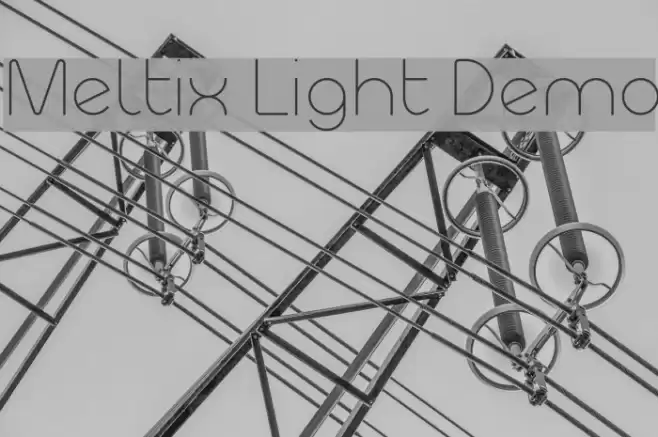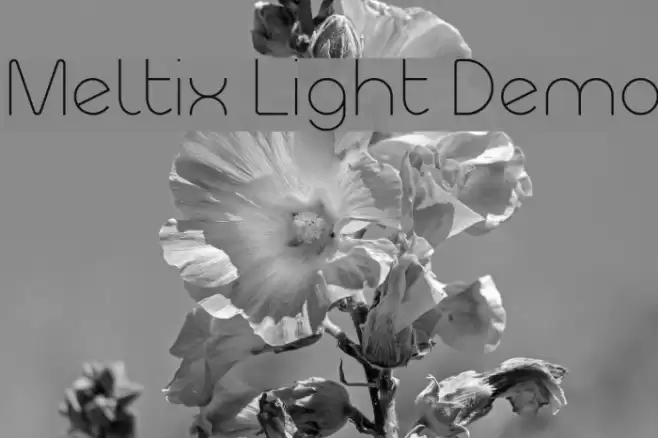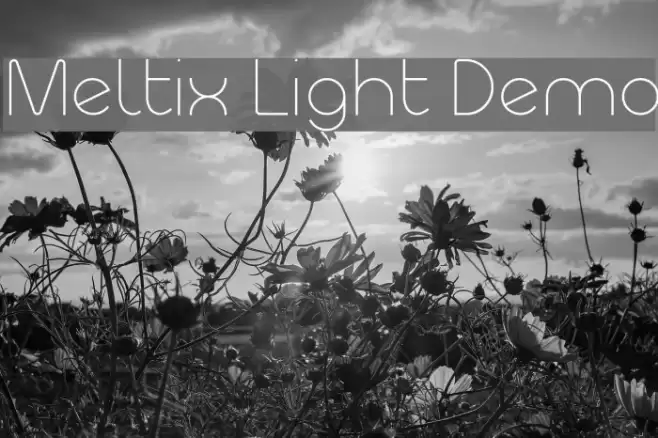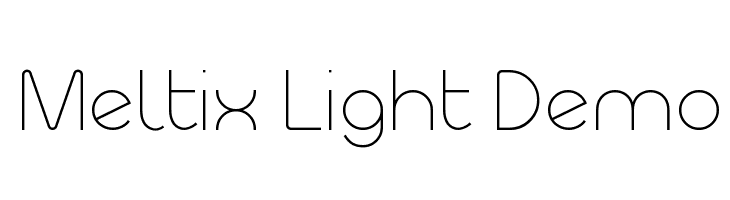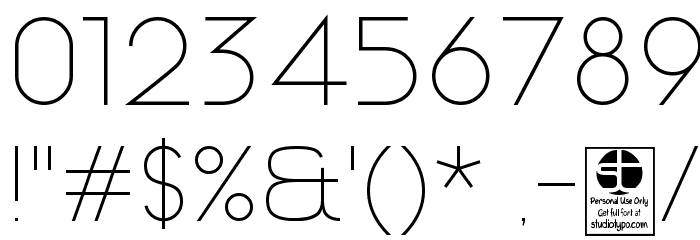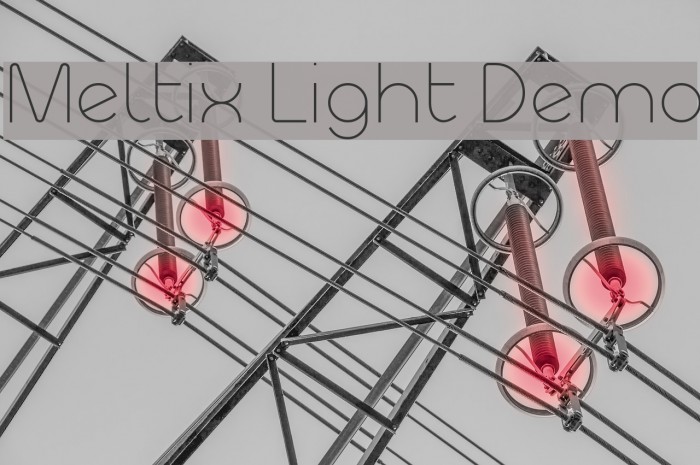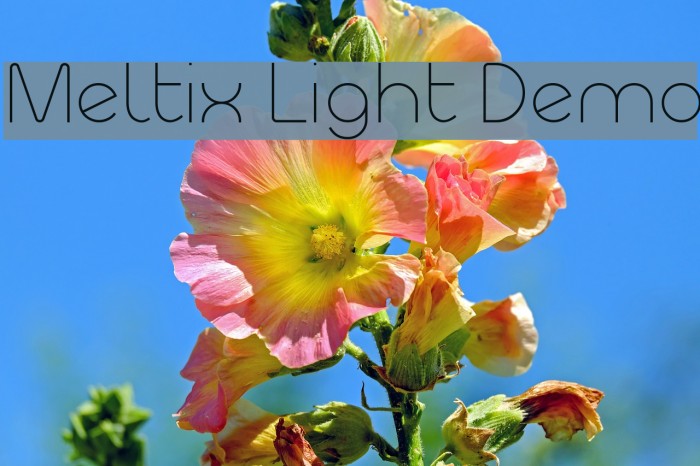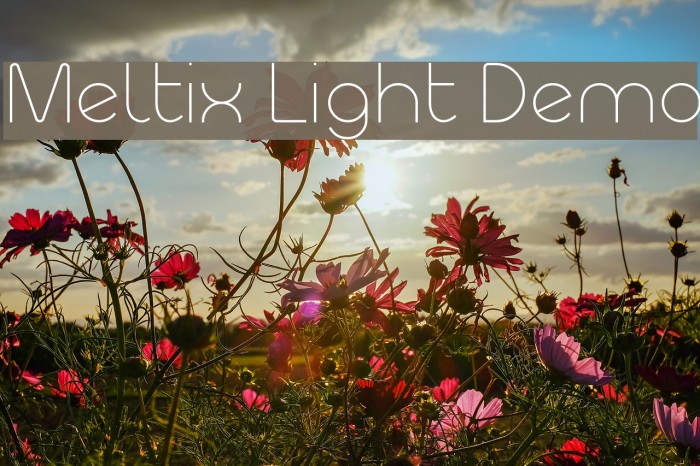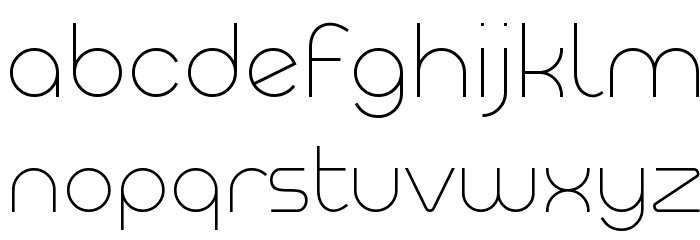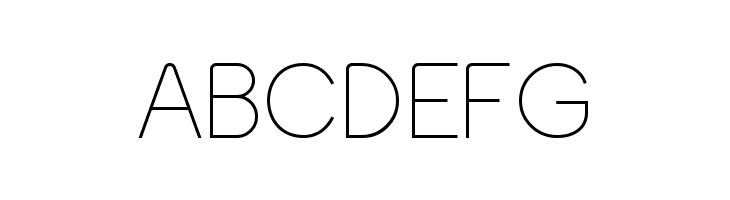
Meltix Light Demo Font
Meltix Light Demo Description
This font features a sleek and modern design with clean, geometric lines. The characters are uniformly thin, giving it a light and airy appearance. The uppercase and lowercase letters maintain a consistent style, with rounded edges and a minimalist aesthetic. The numerals and special characters are designed to match the overall simplicity and elegance of the font. Its uniform stroke width and open forms make it highly legible, suitable for various design applications.
A sleek, modern font with clean, geometric lines and a light, airy appearance from Uncategorized fonts.